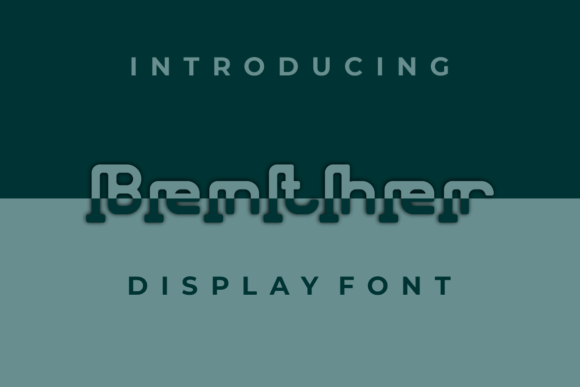
Introduction to Benther Font
Benther is a cool, uniquely shaped display font.
Fall in love with its incredible style and use it to create stunning, original designs .
Why Choose Benther Font?
Benther Font offers exceptional quality and versatility, making it a valuable addition to your design toolkit. Whether you’re creating for personal projects or commercial use, Benther Font delivers professional results.